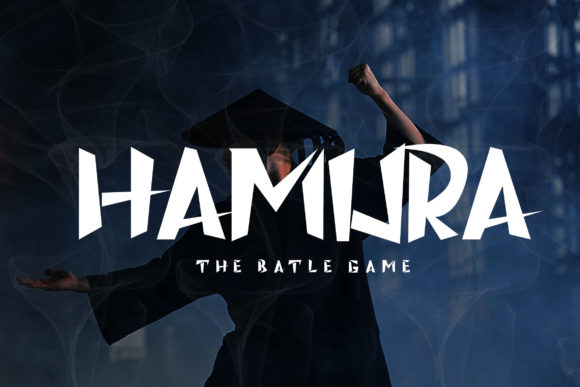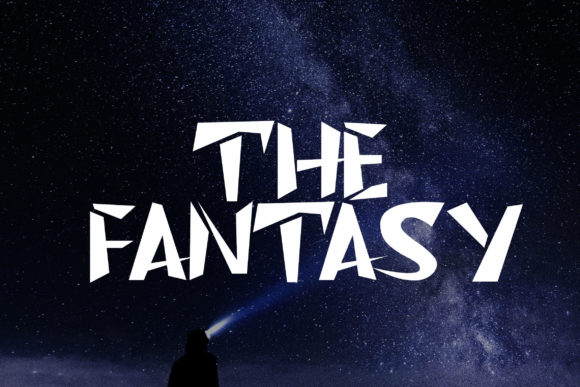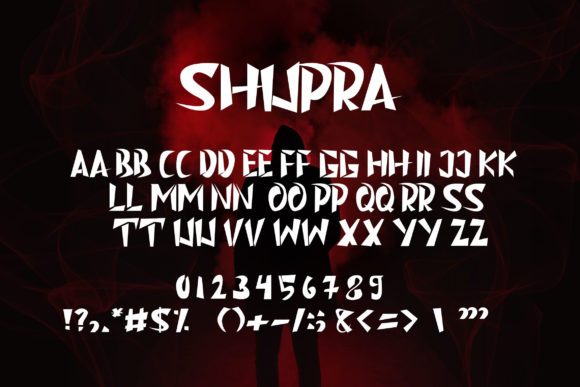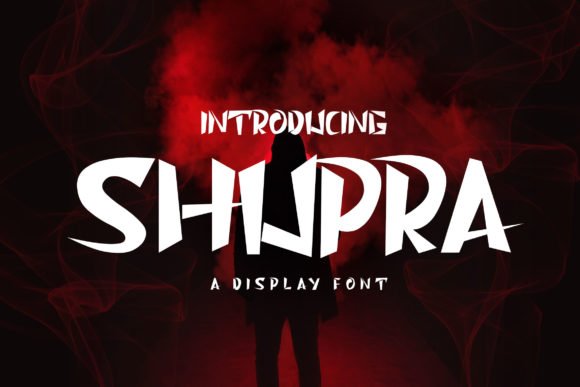
Introduction to Shupra Font
Shupra is a cool, bold and thick lettered display font.
Whether you’re using it for crafting, digital designing, presentations or greeting cards making, it’s perfect .
Why Choose Shupra Font?
Shupra Font offers exceptional quality and versatility, making it a valuable addition to your design toolkit. Whether you’re creating for personal projects or commercial use, Shupra Font delivers professional results.